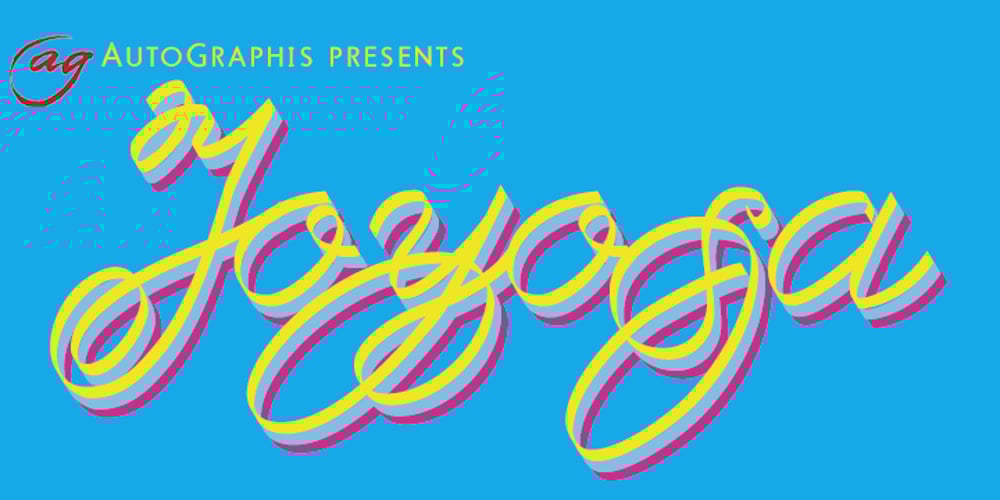
Joyosa
Joyosa font
Joyosa Font Family was designed by Gert Wiescher and published by Autographis. Joyosa contains 1 styles and family package options. Joyosa is an elaborate script written with a broad pen; it gives the impression of a flowing ribbon.